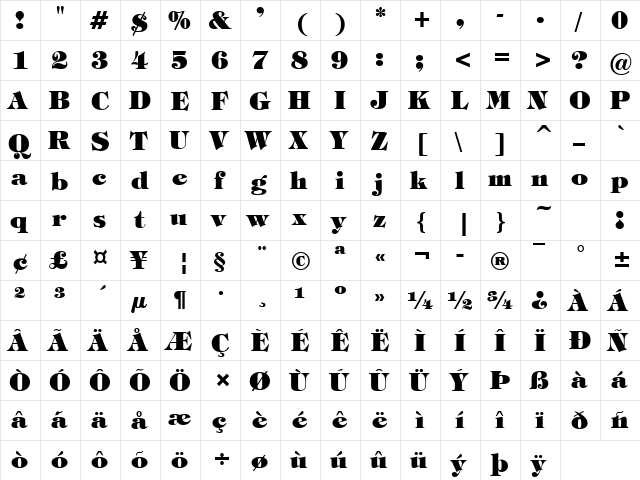
Jewel Bold
Design Context for Jewel Typeface
Jewel offers clean, dependable letterforms without strong stylistic allegiance, making it a practical choice for designers who need flexibility. The heavy weight commands attention and anchors typographic hierarchies.
Pro Tip: Use Jewel in both headline and body roles to test its range before committing to a single application.